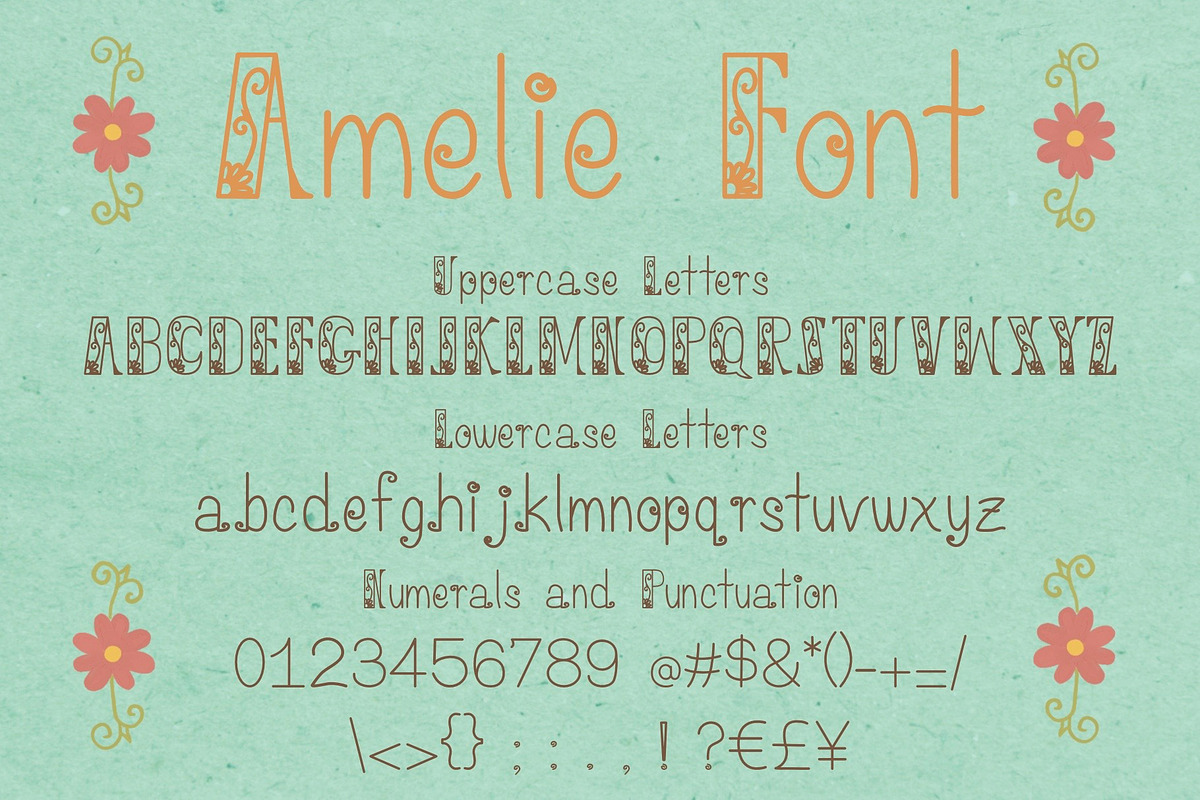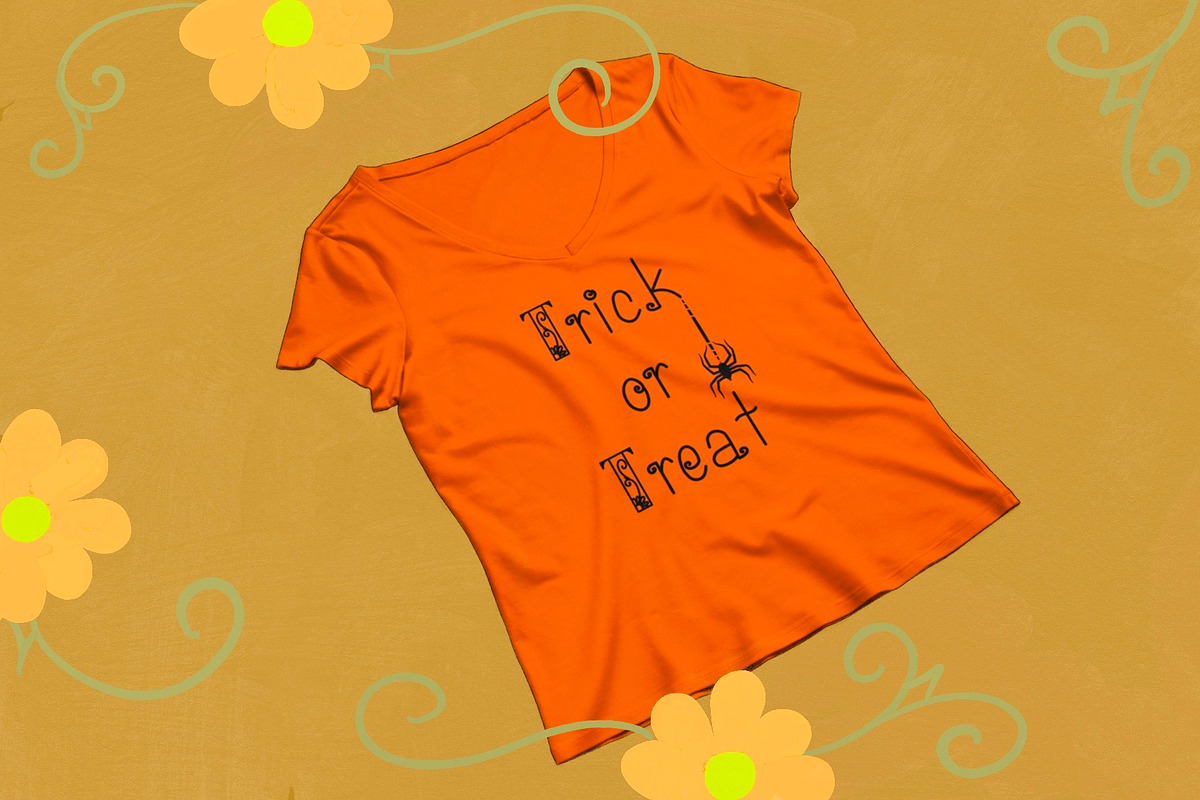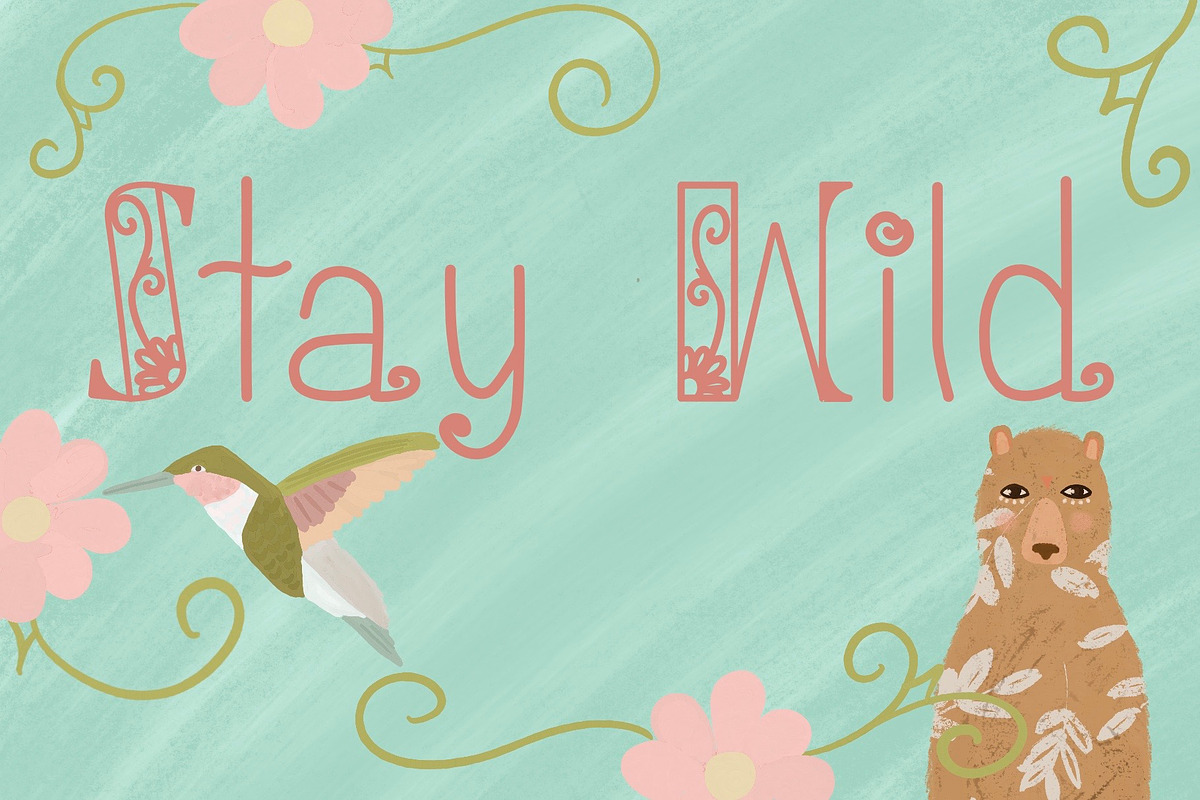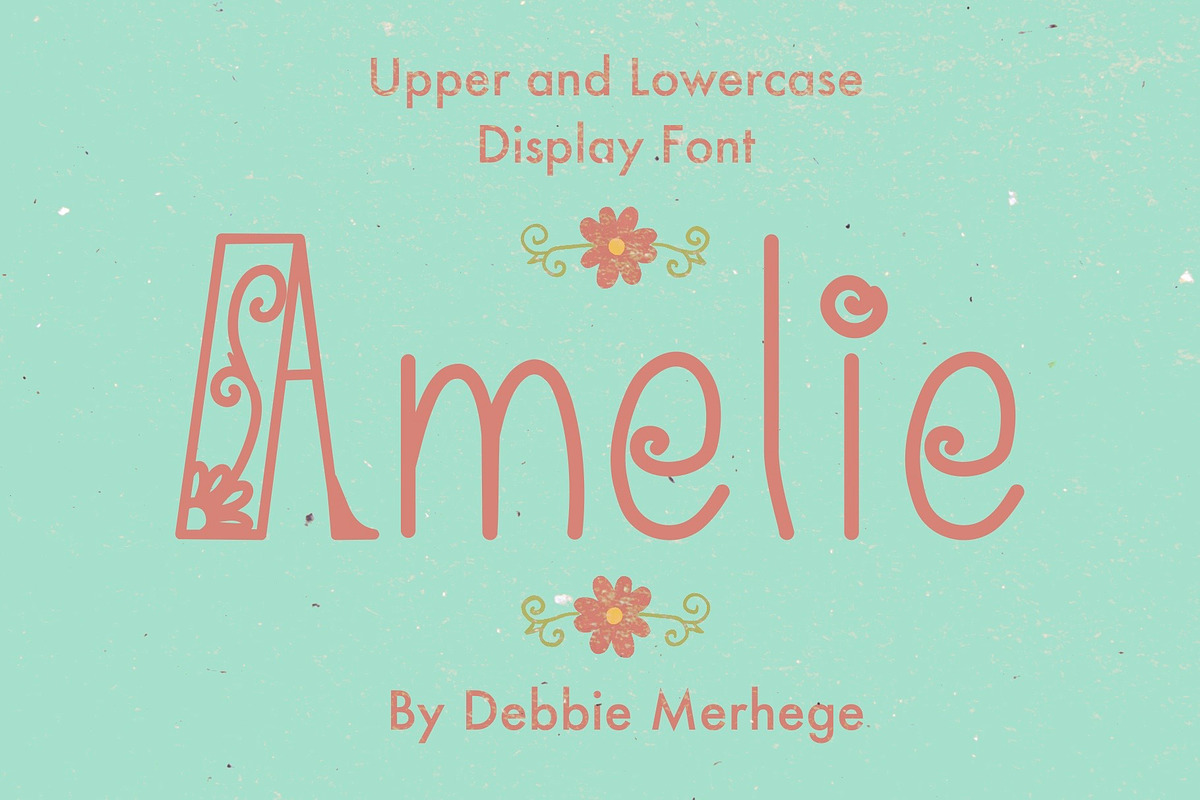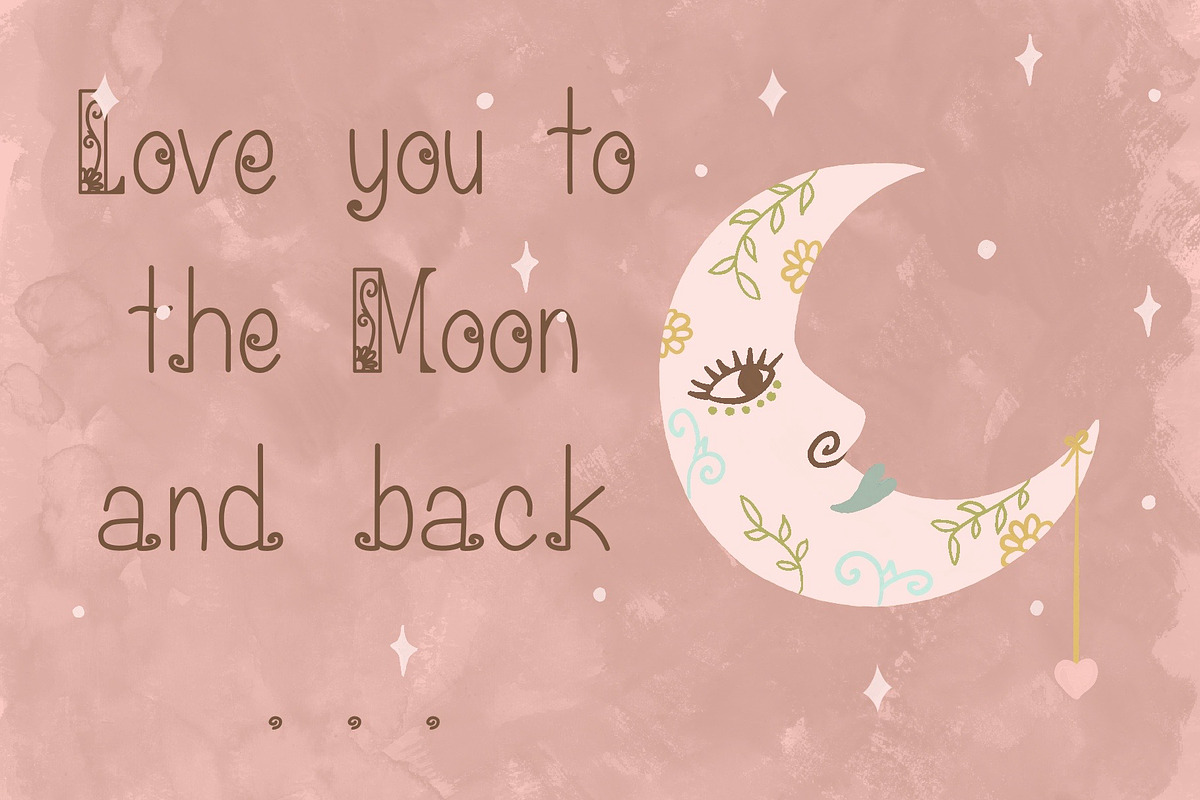
Amelie Hand Drawn Display Font
Amelie is a fun and flowery font in a hand drawn style. It’s perfect to add a unique style to your cards, shirts, artwork and more.
This is an upper and lowercase font with characters, punctation and symbols.